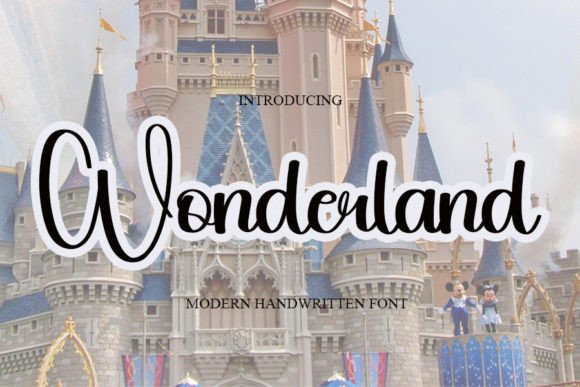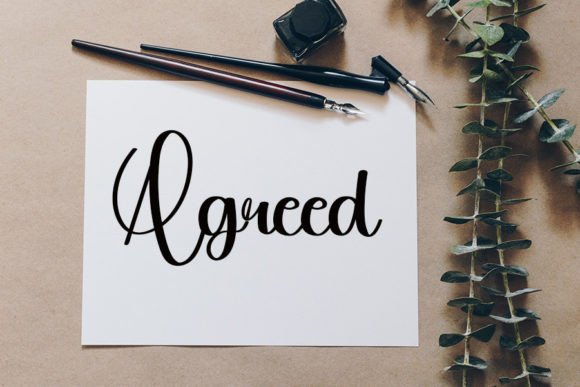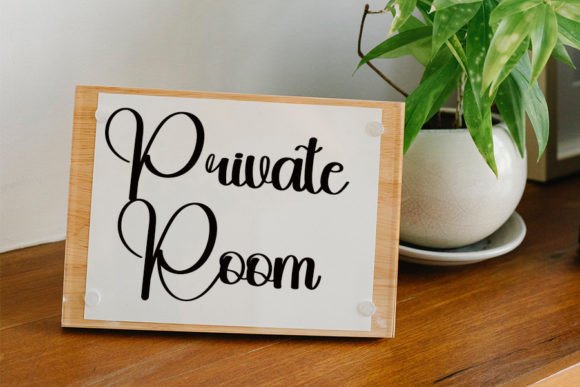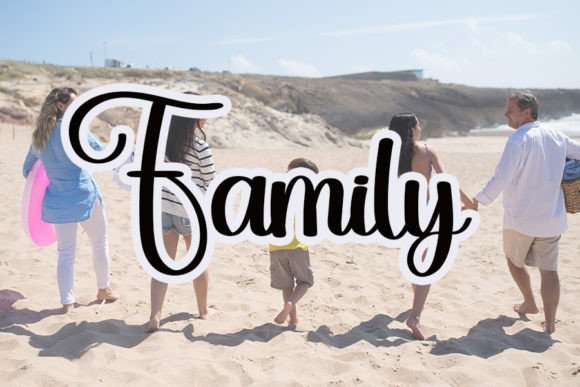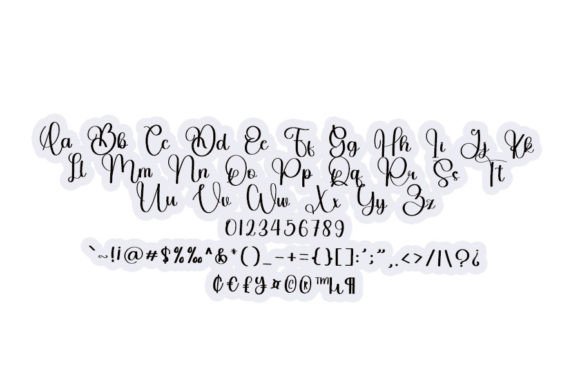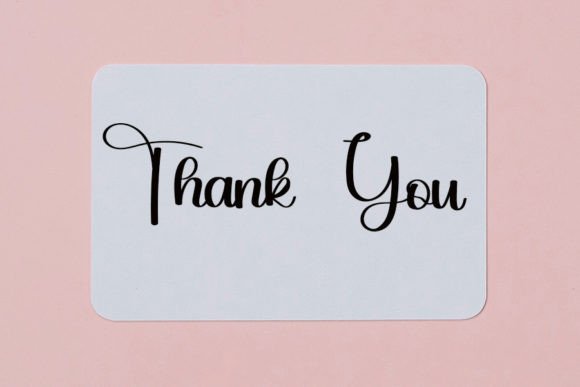
About Wonderland Font
The Wonderland font is a beautifully crafted handwritten typeface that merges classic elegance with a modern flair. Inspired by timeless calligraphy, this font features smooth curves, clean lines, and consistent spacing. It brings sophistication to any creative work, whether it’s for branding, packaging, or digital content.
A Balance of Style and Simplicity
Wonderland isn’t too thin or too thick. It strikes the perfect balance to ensure readability while maintaining a unique visual appeal. The font’s well-structured form makes it ideal for both body text and headings. It was designed with care to enhance the beauty and clarity of your designs, regardless of where it’s used.
Each character flows naturally, mimicking the fluidity of real handwriting. This results in a casual yet refined aesthetic that resonates across various styles. You’ll find it particularly effective in creative industries that value personality and charm.
Designed for Versatility
Whether you’re working on a blog banner, invitation card, boutique brand logo, or social media content, Wonderland font fits the task. It seamlessly adapts to lighthearted, feminine, or elegant projects. Its natural strokes give every word a human touch that feels genuine.
With a spotless structure and well-balanced weight, Wonderland maintains legibility even at small sizes. It’s a reliable font choice for everything from elegant quotes to bold headlines.
Make Your Designs Stand Out
If you’re looking for a handwritten font that feels both modern and timeless, Wonderland is a fantastic choice. Its stylish yet simple form ensures your designs stand out without overpowering the overall message.